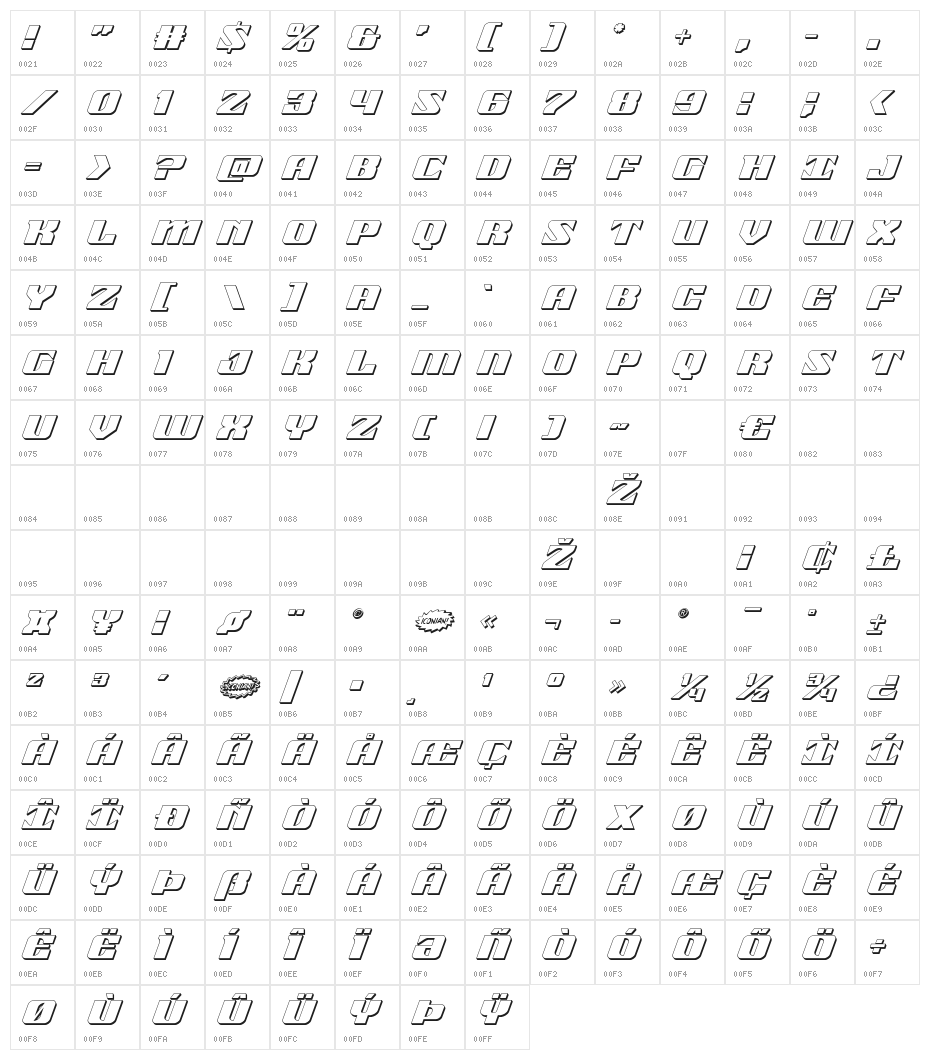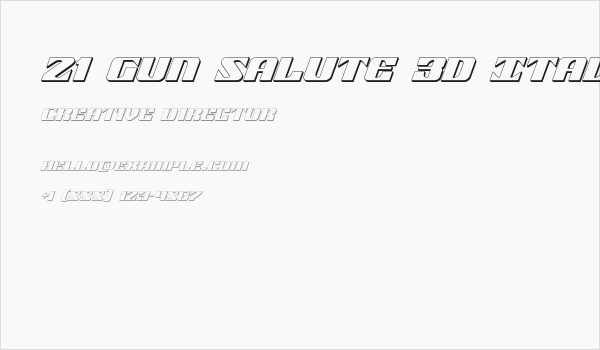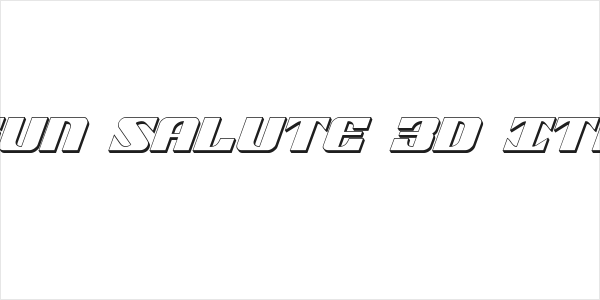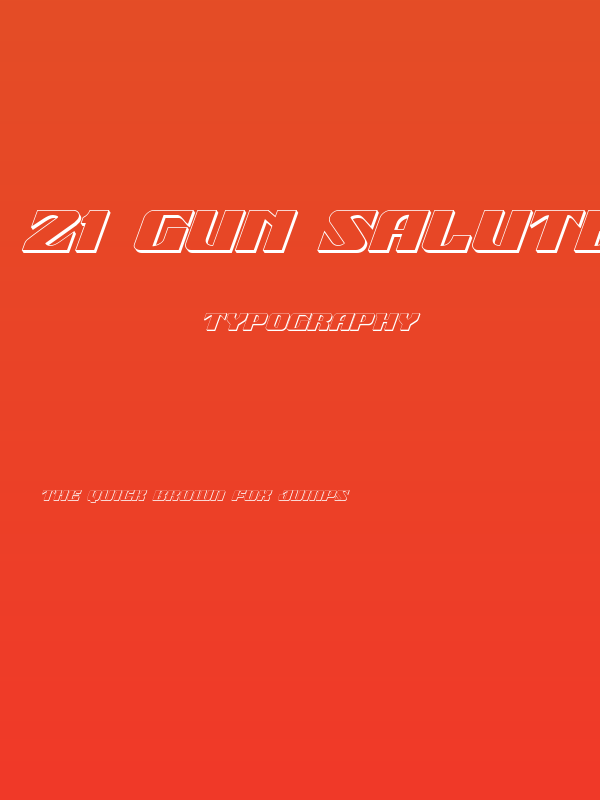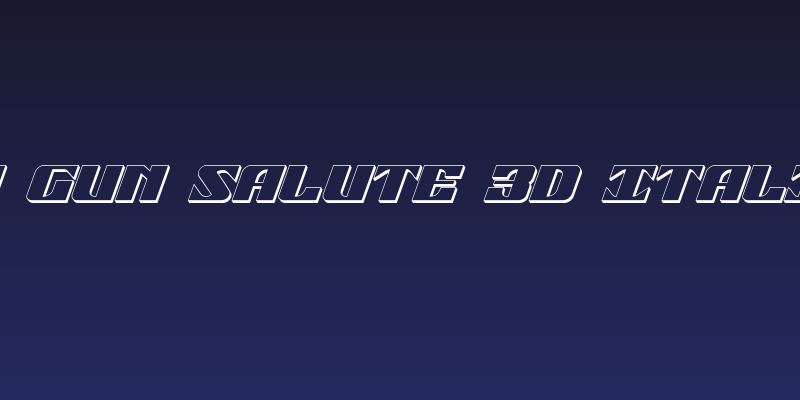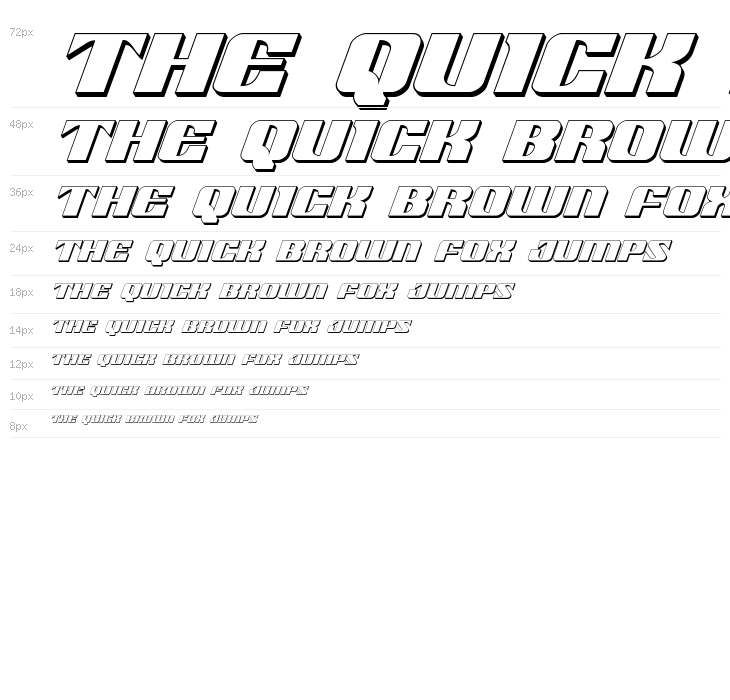
21 Gun Salute 3D Italic Font
21 Gun Salute 3D Italic Description
This font features a bold, three-dimensional design with an italic slant, giving it a dynamic and modern appearance. The characters are outlined, creating a striking visual effect that adds depth and dimension. The uppercase and lowercase letters maintain a consistent style, with sharp angles and clean lines. The numerals and special characters are designed to match the overall aesthetic, ensuring a cohesive look across all text. This font is ideal for projects that require a bold statement and a contemporary feel.
| Proposed Projects | Ideal for posters, logos, video game titles, and any design needing a modern, impactful look. |